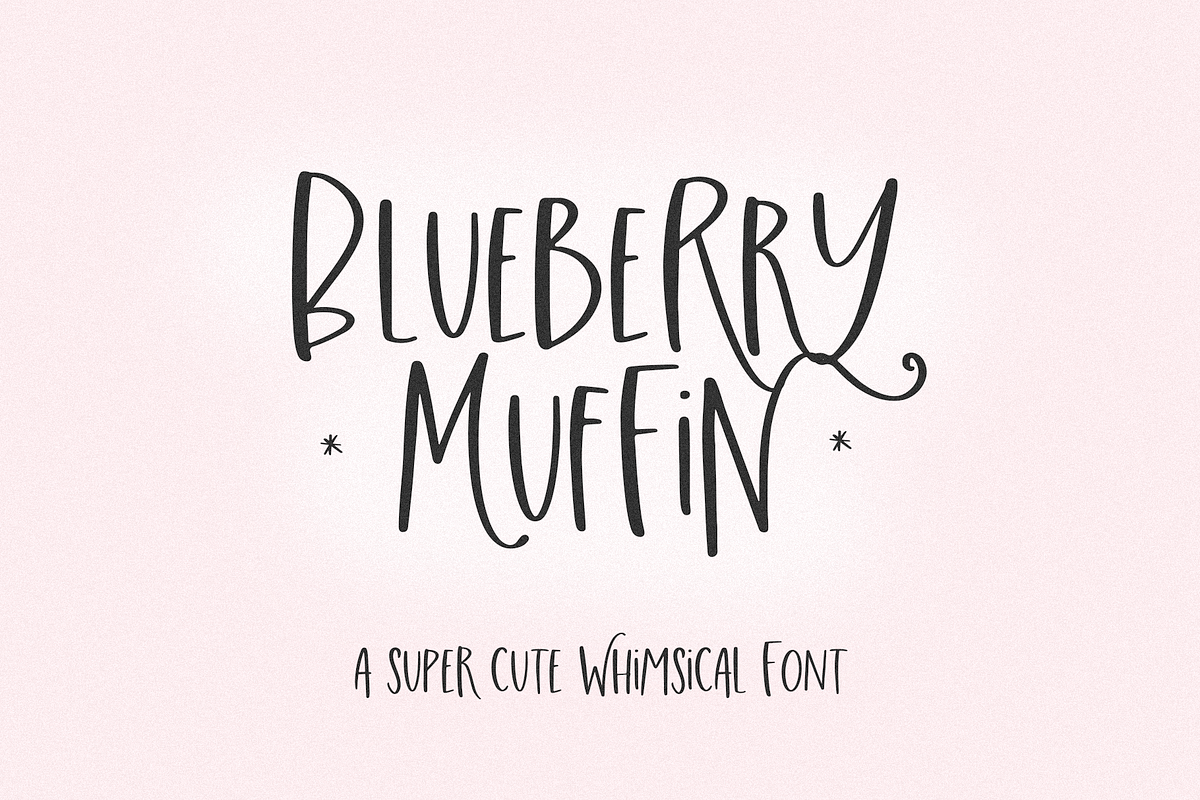
Blueberry Muffin | Cute Swash Font Free Download is a playful and charming script typeface designed to add a touch of whimsy to any project. With its delicate curves, cute swashes, and delightful personality, this font is perfect for branding, greeting cards, social media graphics, product packaging, and more.
Its warm and friendly feel makes Blueberry Muffin ideal for designs aimed at a fun and lighthearted audience. Whether you’re designing for a bakery, creating cheerful invitations, or adding a personal touch to your blog, this font brings joy and creativity to your typography.